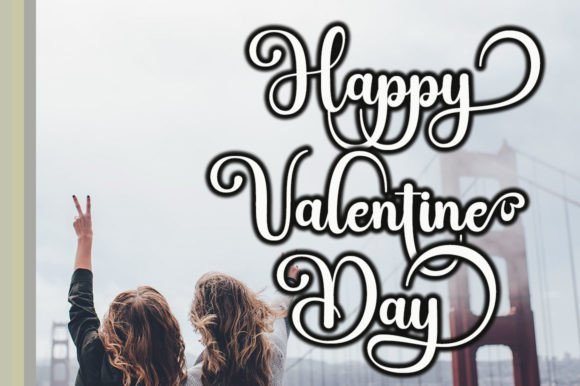
Carley Butterfly Font
Carley Butterfly is a beautiful, timeless handwritten font. It is the best choice for creating attractive logos, branding, and quotes. This font is PUA coded which means you can access all the glyphs and swashes easily!